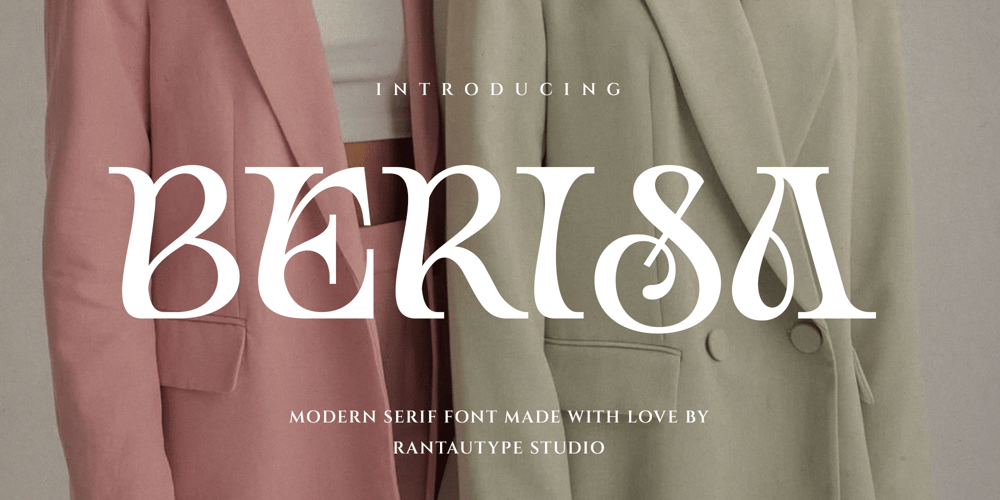
Berisa
Berisa font
Berisa Font Family was designed by Yudi Pratama Chandra and published by RantauType. Berisa contains 2 styles and family package options. Berisa is a new modern serif font embrance elegance. Berisa come with unique curve make it memoriable and versetile. We keep this font look fashionable, elegant and luxury.Berisa is a beautiful choice for any creative endeavor, creating elegant, modern, chic, lifestyle design such as logotype, title, cover, branding, invitations, wedding designs, display and magazine, social media posts, advertisements, printed quotes, product packaging, corporate brand, product designs, labels, photography, watermarks, special events and any other project with elegant touch.What you have: Standart Glyphs Numberial and Functional Ligature and alternate Works on PC & Mac Simple installations Accessible in Adobe Illustrator, Adobe Photoshop, Adobe InDesign, even work on Microsoft Word. Fonts include multilingual support for: Afrikaans, Albanian, Basque, Bemba, Bena, Breton, Catalan, Chiga, Cornish, Danish, Dutch, English, Estonian, Filipino, Finnish, French, Galician, German, Icelandic, Indonesian, Irish, Italian, Kinyarwanda, Luxembourgish, North, Norwegian, Portuguese, Romansh, Rombo, Rundi, Scottish, Gaelic, Sena, Shambala, Shona, Soga, Somali, Spanish, Swahili, Swedish, Swiss, German.Thank you for your purchase!Hope you enjoy with our font!